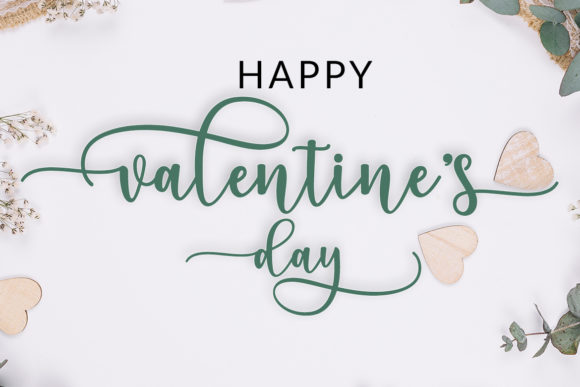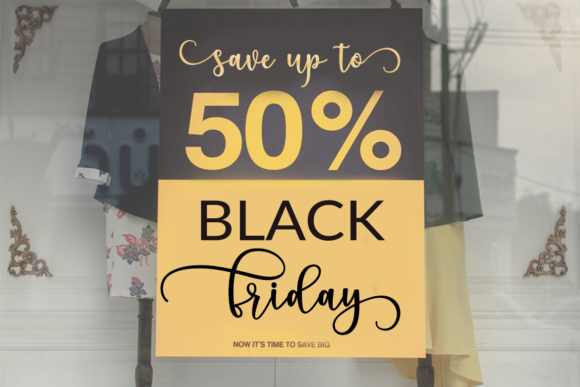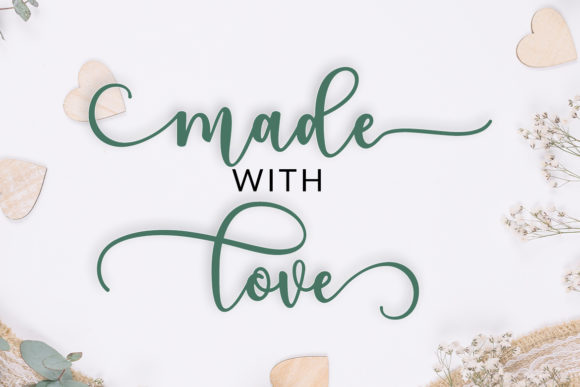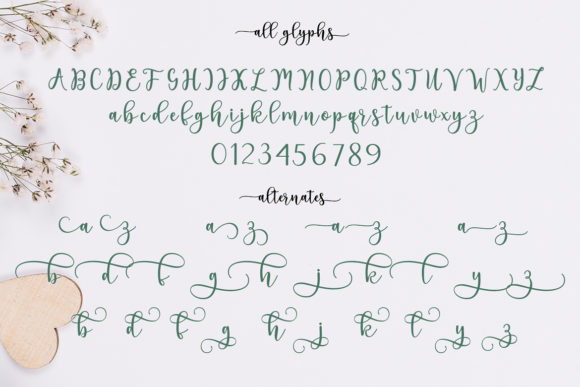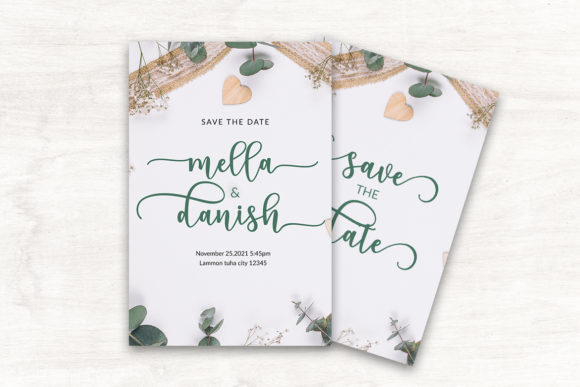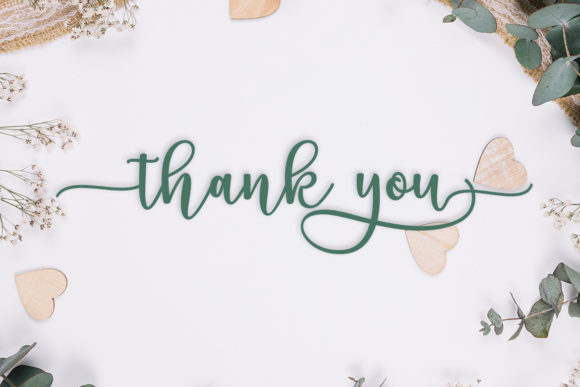
Introducing Friday Font: Elevate Your Designs with a Sweet and Soft Hand-Lettered Script
Are you tired of using the same old fonts in your designs? Do you want to add a touch of elegance and sophistication to your creations? Look no further than Friday Font, a beautiful hand-lettered script font that is sure to take your designs to the next level. In this article, we’ll dive into the features and benefits of Friday Font, and explore how it can help you create original and outstanding designs.
What is Friday Font?
Friday Font is a sweet and soft hand-lettered script font that is perfect for designers and crafters looking to add a personal touch to their work. With its flowing lines and delicate curves, Friday Font is ideal for creating beautiful and eye-catching designs that stand out from the crowd.
Key Features of Friday Font
So, what makes Friday Font so special? Here are just a few of its key features:
- Awesome Swashes: Friday Font features a range of awesome swashes that allow you to add a touch of elegance and sophistication to your designs. Whether you’re creating a logo, a poster, or a social media graphic, these swashes are sure to make your design stand out.
- Stylistic Sets: With Friday Font, you get access to a range of stylistic sets that allow you to mix and match different letterforms and create unique and interesting combinations.
- Stylistic Alternates: In addition to its swashes and stylistic sets, Friday Font also features a range of stylistic alternates that allow you to add some extra flair to your designs.
Benefits of Using Friday Font
So, why should you choose Friday Font for your next design project? Here are just a few benefits of using this beautiful hand-lettered script font:
- Unique and Original: With Friday Font, you can create designs that are truly one-of-a-kind. Its unique and original letterforms ensure that your designs will stand out from the crowd and grab attention.
- Elegant and Sophisticated: Friday Font is the perfect choice for designers who want to add a touch of elegance and sophistication to their work. Its flowing lines and delicate curves make it ideal for creating beautiful and eye-catching designs.
- Versatile: Whether you’re creating a logo, a poster, a social media graphic, or a website, Friday Font is a versatile font that can be used in a wide range of design projects.
How to Use Friday Font in Your Designs
So, how can you use Friday Font in your designs? Here are a few tips and ideas to get you started:
- Pair it with Other Fonts: Friday Font pairs beautifully with other fonts, so don’t be afraid to experiment with different combinations. Try pairing it with a bold sans-serif font for a striking contrast.
- Use it for Headings and Titles: Friday Font is perfect for creating beautiful and eye-catching headings and titles. Use it to add a touch of elegance and sophistication to your designs.
- Add Some Swashes: Don’t be afraid to add some swashes to your design to give it some extra flair. Friday Font’s swashes are designed to be easy to use and add a touch of elegance to your designs.
In conclusion, Friday Font is a beautiful hand-lettered script font that is perfect for designers and crafters looking to add a touch of elegance and sophistication to their work. With its awesome swashes, stylistic sets, and stylistic alternates, Friday Font is the perfect choice for creating original and outstanding designs. So why not give it a try and see what amazing designs you can create?